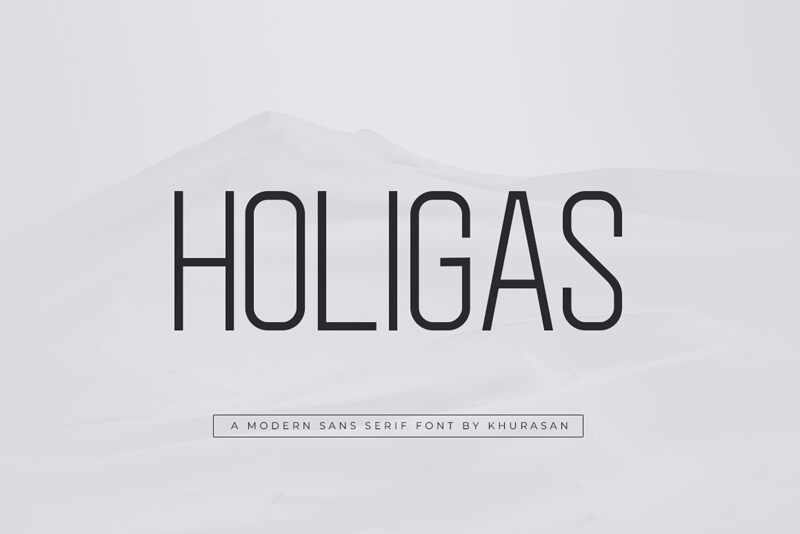
Holigas
Holigas is a sleek and modern sans-serif font designed by Khurasan. Its semi-light weight and extra-condensed width give it a unique, eye-catching look that's perfect for a variety of design projects. From minimalist logos to clean website headers, Holigas adds a touch of sophistication to any design. Its legibility also makes it suitable for body text in print or digital media. Use Holigas for fashion branding, tech startups, or even food packaging – the possibilities are endless with this versatile font. Get creative and make your designs stand out with Holigas!